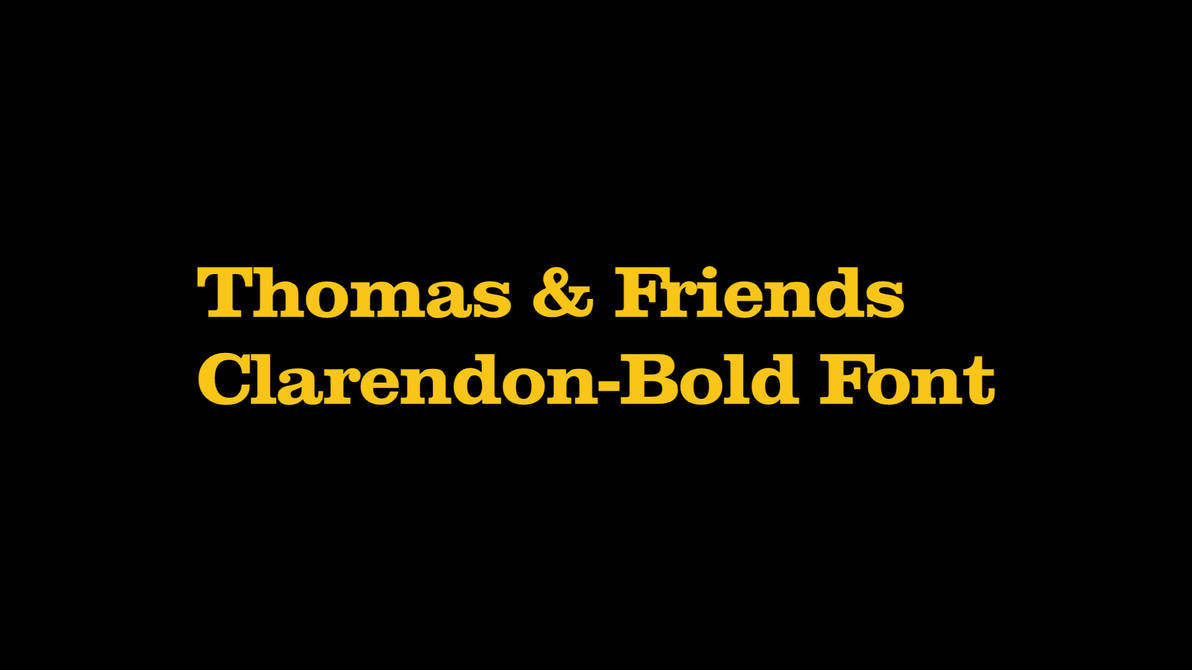
Clarendon Bold Dtc Font . Web clarendon bold is the perfect font for all your fun designs. Web the clarendon text pro bold font allows you to take your projects to incredible heights.
Clarendon Bold Dtc Font - Web download superclarendon bold for free. View sample text, character map, user rating and review for clarendon extended bold. The font family is clarendon. The font subfamily is bold. Web the clarendon text pro bold font allows you to take your projects to incredible heights.
Clarendon Bold Dtc Font - The font family is clarendon. Web looking for bold clarendon fonts? Web clarendon bold is the perfect font for all your fun designs. View sample text, character map, user rating and review for clarendon extended bold. Every font is free to download!
Clarendon Bold Dtc Font - Web the clarendon text pro bold font allows you to take your projects to incredible heights. Web explore clarendon text designed by patrick griffin at adobe fonts. View sample text, character map, user rating and review for clarendon extended bold. Click to find the best 2 free fonts in the bold clarendon style. A slab serif typeface with 4 styles,.
Clarendon Bold Dtc Font - A slab serif typeface with 4 styles, available from adobe fonts for. Web the clarendon text pro bold font allows you to take your projects to incredible heights. Fonts are available in truetype, opentype and web type formats from all. Click to find the best 2 free fonts in the bold clarendon style. Web clarendon bold is the perfect font.
Clarendon Bold Dtc Font - Click to find the best 2 free fonts in the bold clarendon style. View sample text, character map, user rating and review for clarendon extended bold. Every font is free to download! A slab serif typeface with 4 styles, available from adobe fonts for. Web the clarendon text pro bold font allows you to take your projects to incredible heights.
Clarendon Bold Dtc Font - Web looking for bold clarendon fonts? Web clarendon bold is the perfect font for all your fun designs. A slab serif typeface with 4 styles, available from adobe fonts for. Web download superclarendon bold for free. Every font is free to download!
Clarendon Bold Dtc Font - A slab serif typeface with 4 styles, available from adobe fonts for. The font subfamily is bold. Fonts are available in truetype, opentype and web type formats from all. Web clarendon bold is the perfect font for all your fun designs. The font family is clarendon.
Clarendon Bold Dtc Font - View sample text, character map, user rating and review for clarendon extended bold. Web looking for bold clarendon fonts? Every font is free to download! Web the clarendon text pro bold font allows you to take your projects to incredible heights. Web download clarendon extended bold for free.
Clarendon Bold Dtc Font - Web download superclarendon bold for free. Click to find the best 2 free fonts in the bold clarendon style. Web looking for bold clarendon fonts? Web clarendon bold is the perfect font for all your fun designs. Web download clarendon extended bold for free.
Clarendon Bold Dtc Font - Click to find the best 2 free fonts in the bold clarendon style. Web download clarendon extended bold for free. Web clarendon bold is the perfect font for all your fun designs. The font family is clarendon. Web download superclarendon bold for free.